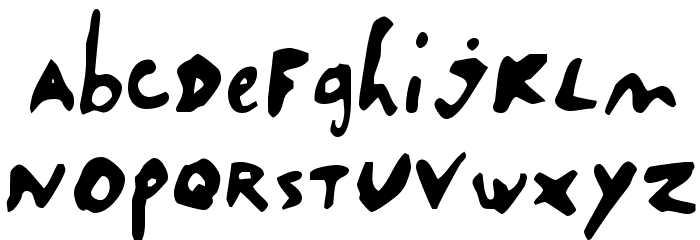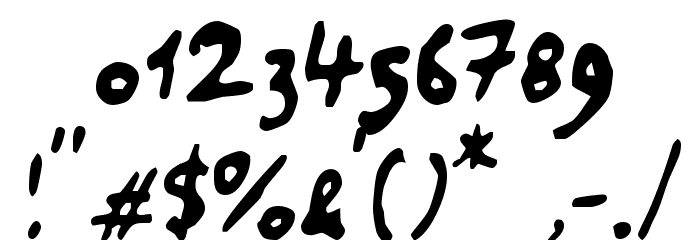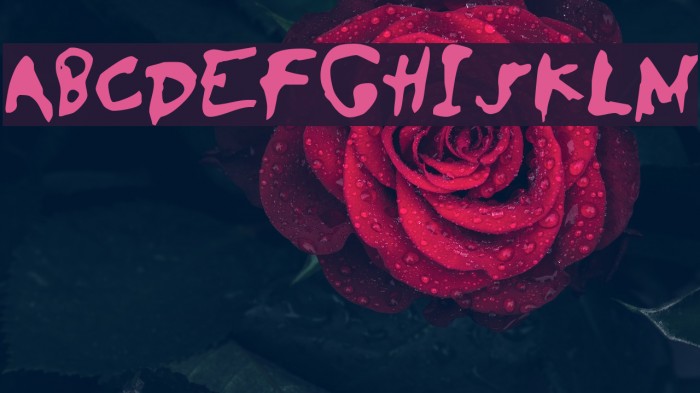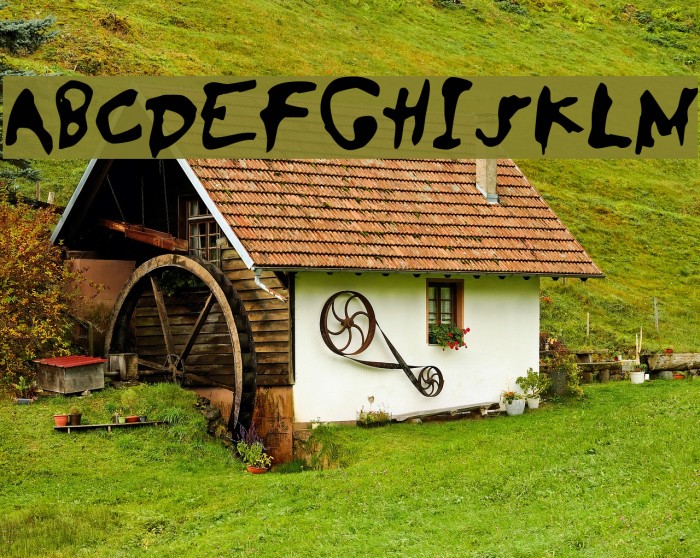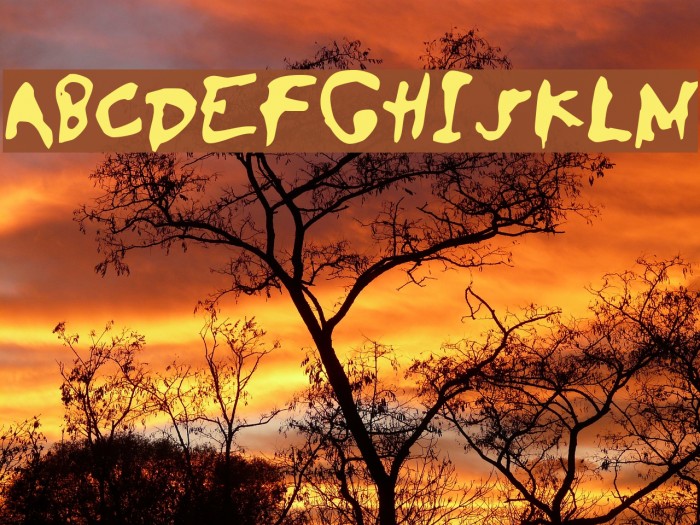
SaladeDeFruitsRaisin Font
This font features a playful and dynamic handwritten style, characterized by irregular and bold strokes that give it a lively and energetic appearance. The letters are slightly slanted, adding to the casual and informal feel. The uppercase and lowercase letters maintain a consistent style, with unique variations that enhance its handcrafted look. The numbers and special characters are equally expressive, maintaining the font's overall whimsical and artistic vibe. This font is ideal for projects that require a personal touch, such as invitations, greeting cards, or creative branding.
A playful, handwritten font with bold, irregular strokes and a lively appearance.
- Proposed Projects: Ideal for invitations, greeting cards, creative branding, and artistic projects.
- Use Case: Logos, Headlines, Creative projects